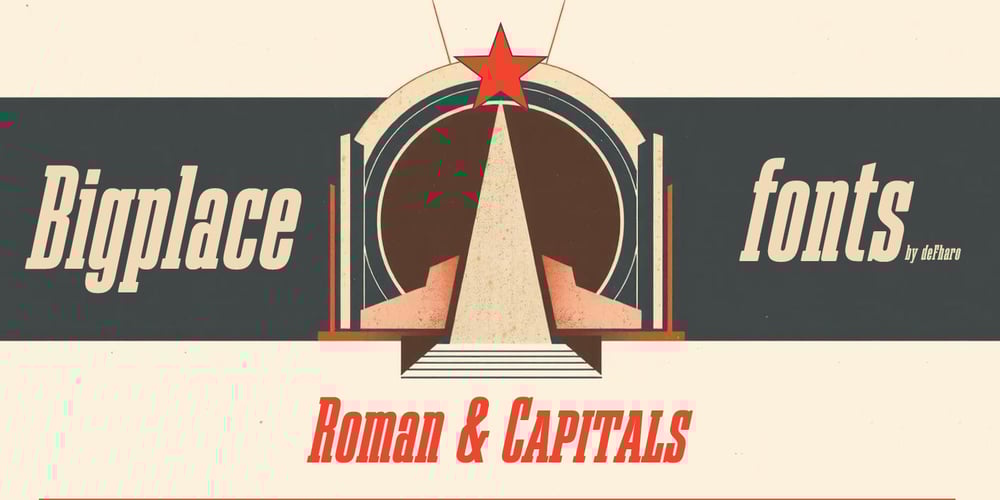
Bigplace Font Family was designed by Fernando Haro and published by deFharo. Bigplace contains 2 styles and family package options. Bigplace, a typefaces with an ultra-condensed structure and a bold Extra Bold style! Designed to stand out, Bigplace combines the strength and presence of a Slab Serif with the energy of its oblique stroke, giving it an unmistakable dynamism.Inspired by two of the most influential graphic movements of the 20th century, the Bauhaus and Soviet Constructivism, Bigplace draws from the best of graphic design, posters, and editorial design from these avant-gardes, merging their functional character with a touch of contemporary boldness.Two versions with unique features:Roman: with its characteristic balance between upper and lower case.Capitals: plays with capital letters of different sizes to create original and dynamic compositions.Extra Condensed and Extra Bold Proportions: The density of its shapes gives a great visual presence, ideal for capturing attention in limited horizontal spaces.Slab Serif Oblique Style: With its 12-degree inclination, it provides dynamism and movement, without losing solidity.Advanced OpenType Technology: Bigplace is equipped with OpenType functions that include, among others: Alternative letters and numbers: Variety at your fingertips. Dynamic Fractions: Composition of numbers and measurements. Petite Caps: A sophisticated touch in your texts. Compatible with Latin Extended-A, this typeface is perfect for multilingual projects, ensuring effective and elegant communication in different languages.